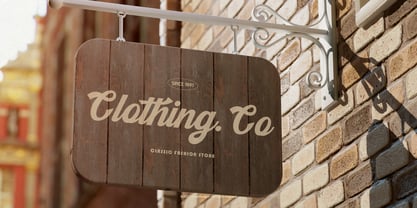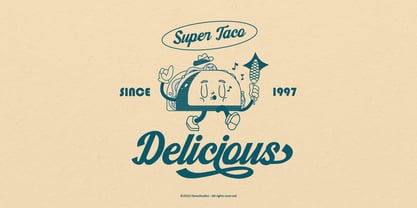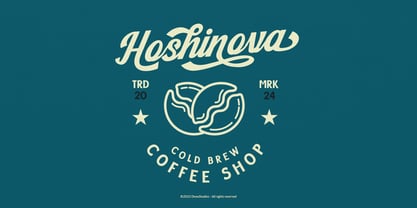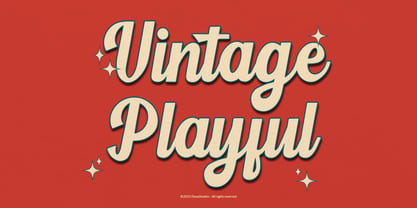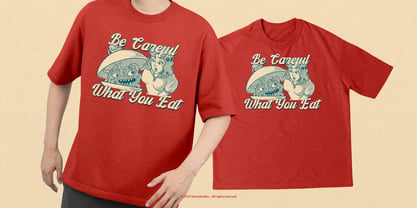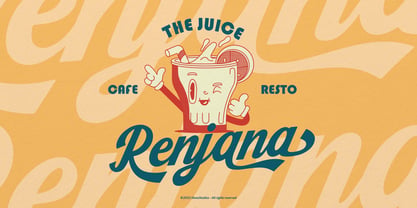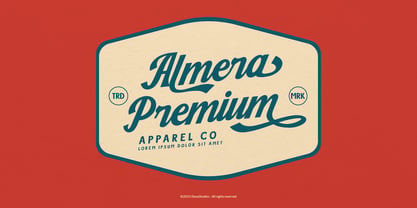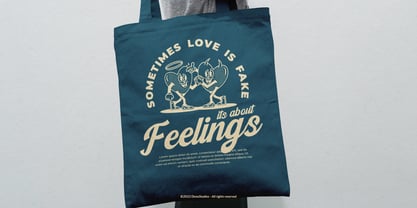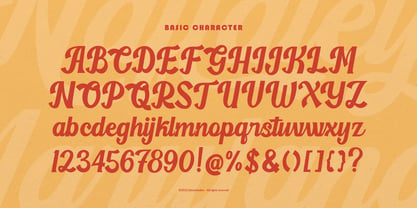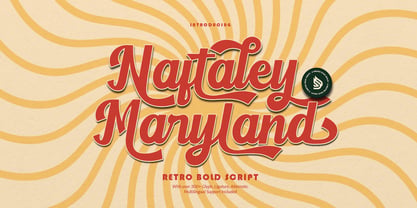
Naftaley Maryland
The Naftaley Maryland Font Family was designed by Dede Nugraha and published by Denustudio. Naftaley Maryland contains 2 styles and family package options. More about this family
Naftaley Maryland | Retro Bold Script, from Denustudios, suitable for any projects such as: logos, branding projects, homeware designs, product packaging, mugs, quotes, posters, shopping bags, t-shirts, book covers, name card, invitation cards, greeting cards, label, photography, watermark, special events, and all your other lovely projects that need Retro Bold Script a taste.
• Regular and Italic
• Alternate and Ligature